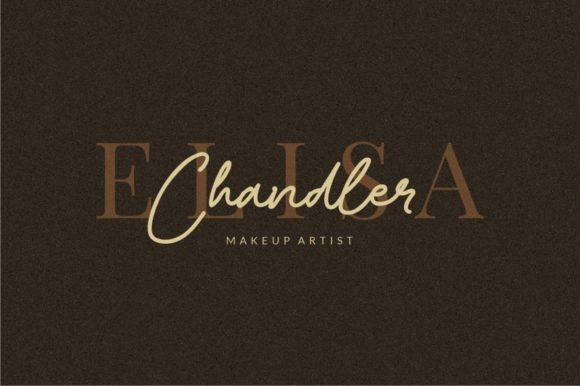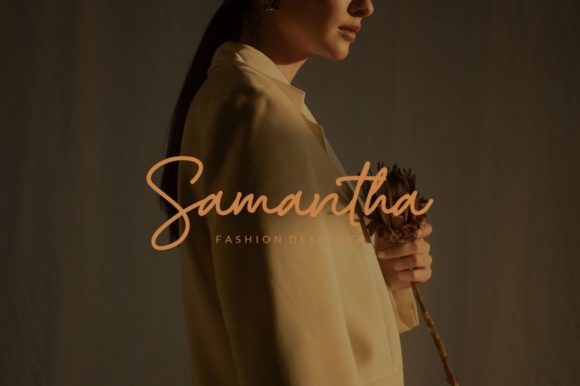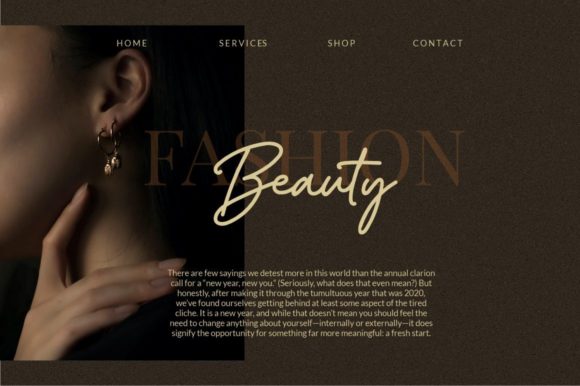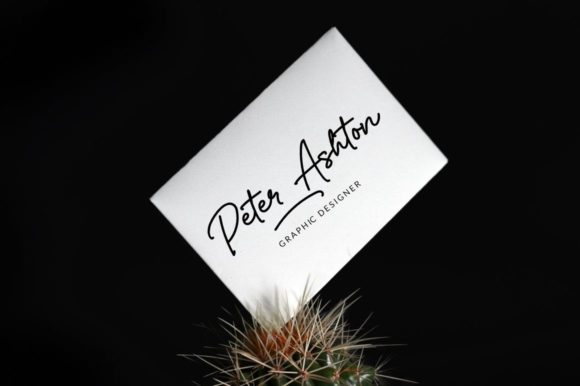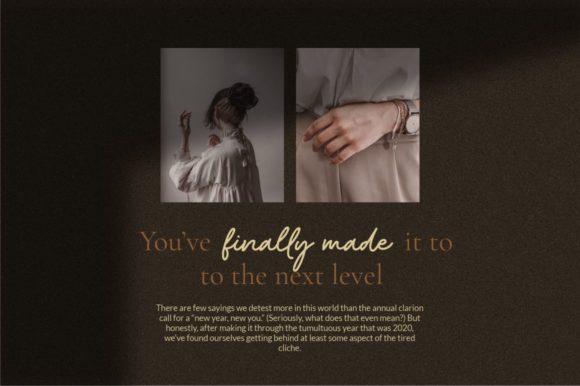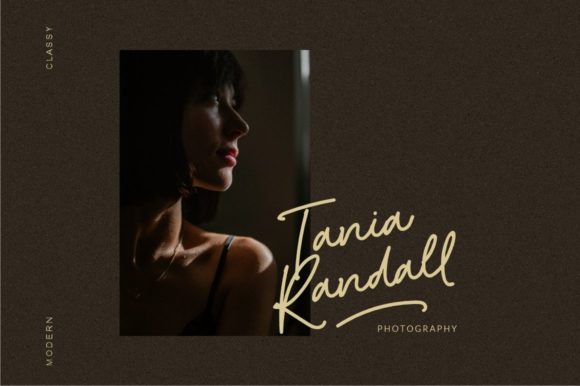
Introduction to Last Beyond Font
Last Beyond is a superb handwritten font that will make your work stand out through its elegant and curvy lines.
It is perfect for product packaging, branding project, magazine covers, social media, wedding, or just used to express words above the background .